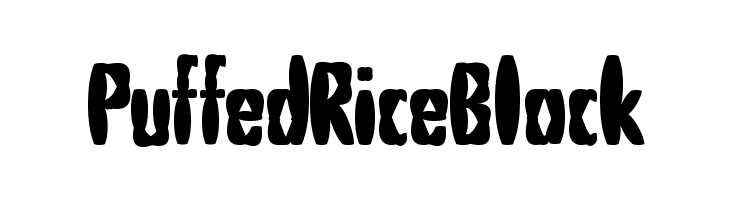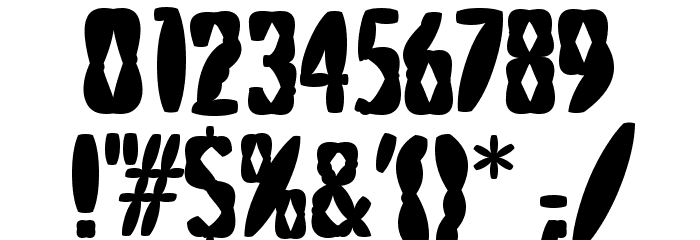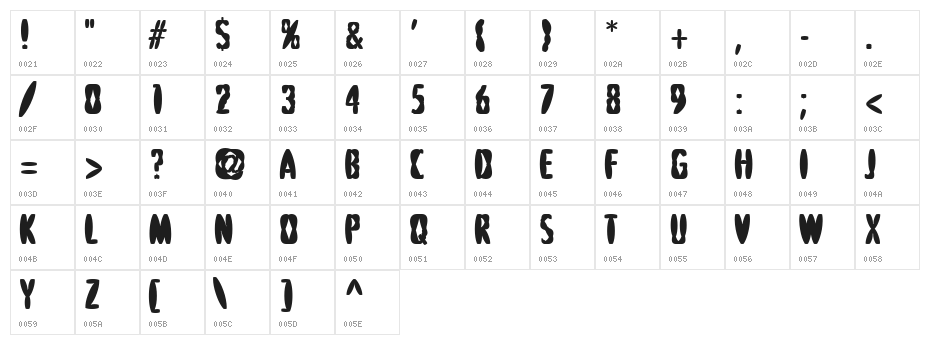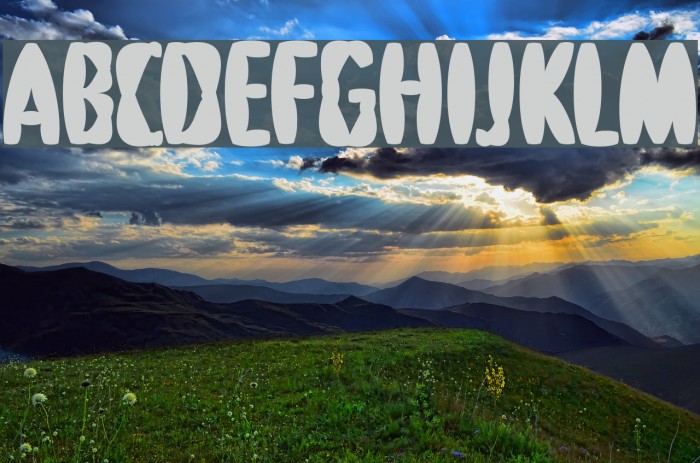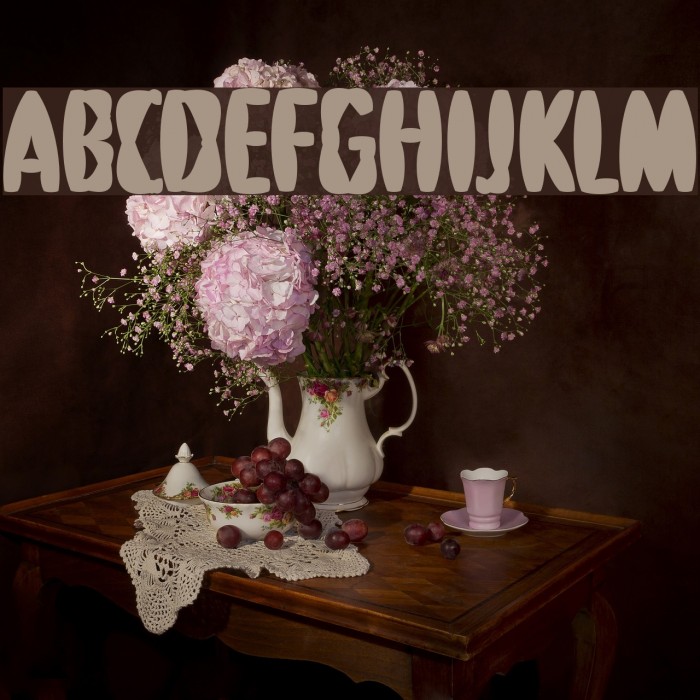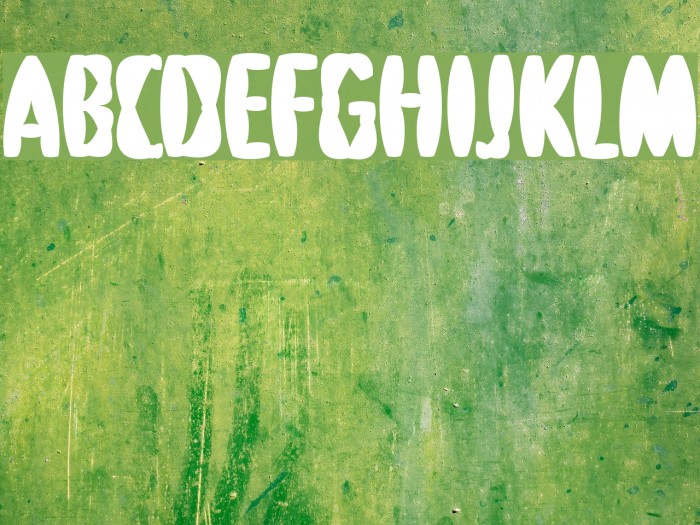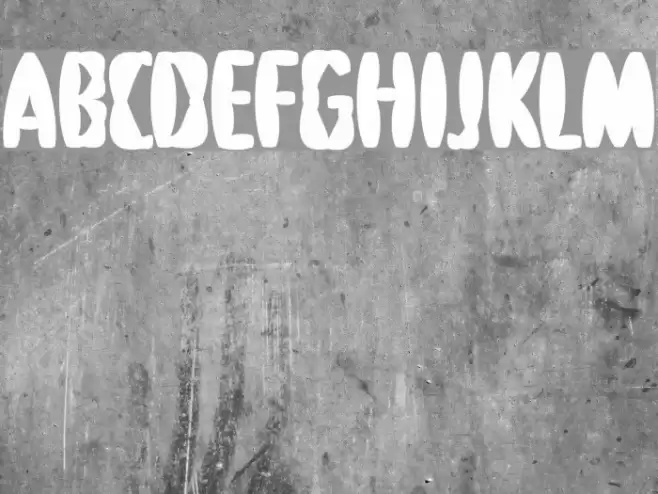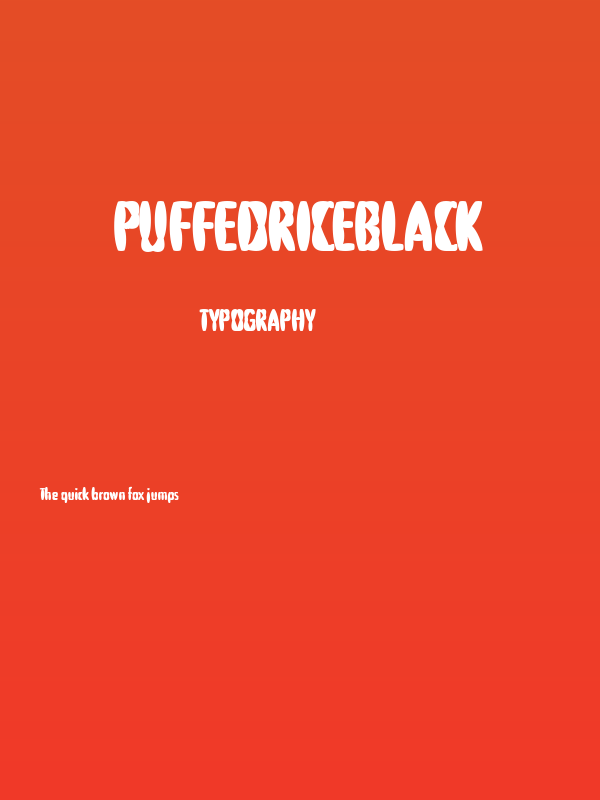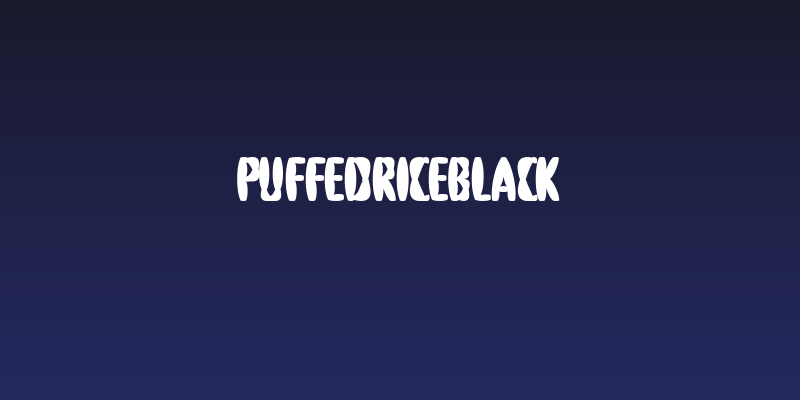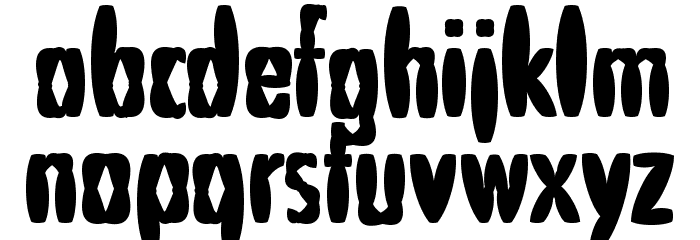
PuffedRiceBlack Font
PuffedRiceBlack Description
This font features bold, rounded characters with a playful and chunky appearance. The letters are thick and have a slightly irregular shape, giving them a hand-drawn feel. The uppercase and lowercase letters maintain a consistent weight, creating a cohesive look. Numbers and special characters follow the same style, ensuring uniformity across all glyphs. The font's design is eye-catching and ideal for projects that require a fun and informal touch.
| Overall Style | Playful, Fun |
| Proposed Projects | Ideal for children's books, playful branding, posters, and social media graphics. |